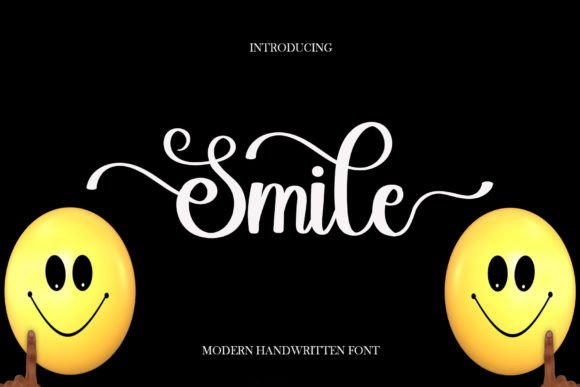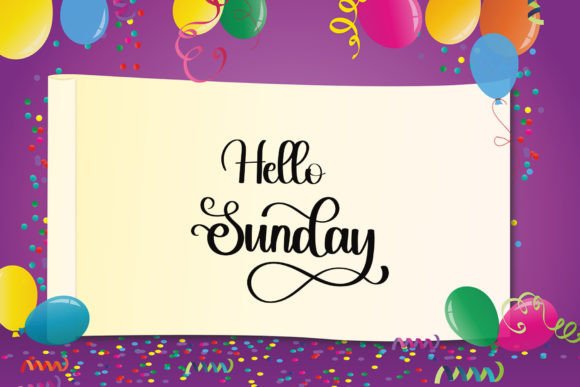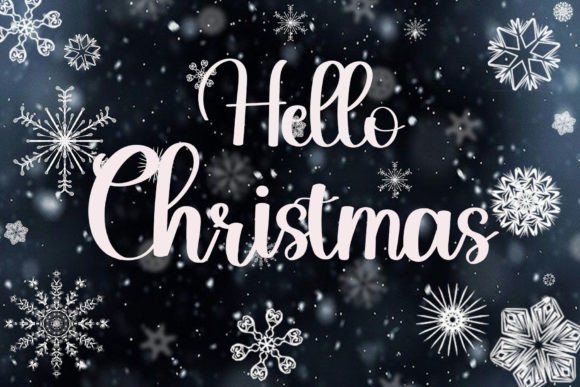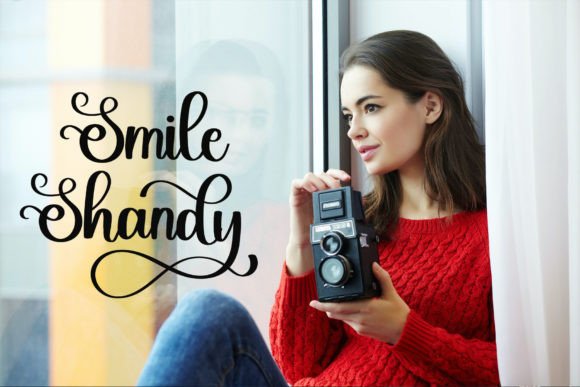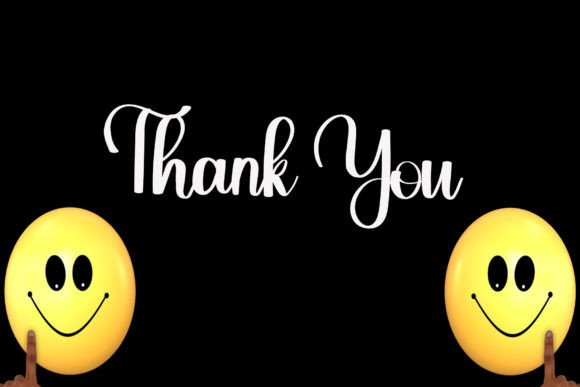
Smile Font
Smile is a delicate handwritten font, carefully crafted for a cool and unique design. This font can be used to write letters, invitations, food products, titles, and more.